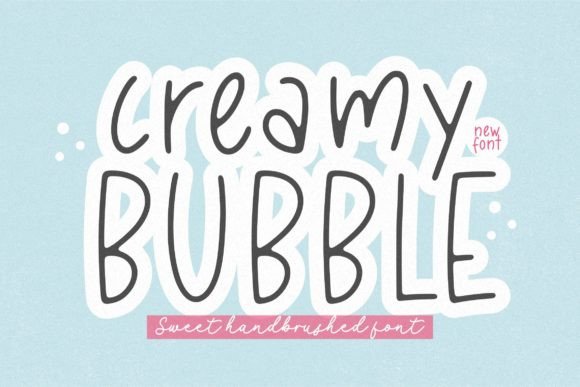
Step into the enchanting world of Creamy Bubble, a sweet handbrushed font that invites you to embark on a journey of creativity and elegance. Its smooth, effortless lines and understated sophistication effortlessly capture the essence of modern design, while its timeless appeal ensures that it will never go out of style.
With Creamy Bubble, you'll discover a font that's incredibly versatile, seamlessly adapting to a myriad of design projects. Its charm and grace make it an ideal choice for logos, branding, invitations, packaging, and more. Let your imagination soar as you explore the endless possibilities that await.
Whether you're a seasoned designer seeking to elevate your projects or a novice just starting out, Creamy Bubble is your perfect companion. Its user-friendly nature makes it accessible to all, inviting you to create designs that speak volumes.
Indulge in the beauty of Creamy Bubble and witness the transformative power it brings to your designs. Elevate your projects to new heights of creativity and sophistication, leaving a lasting impression on all who behold them.